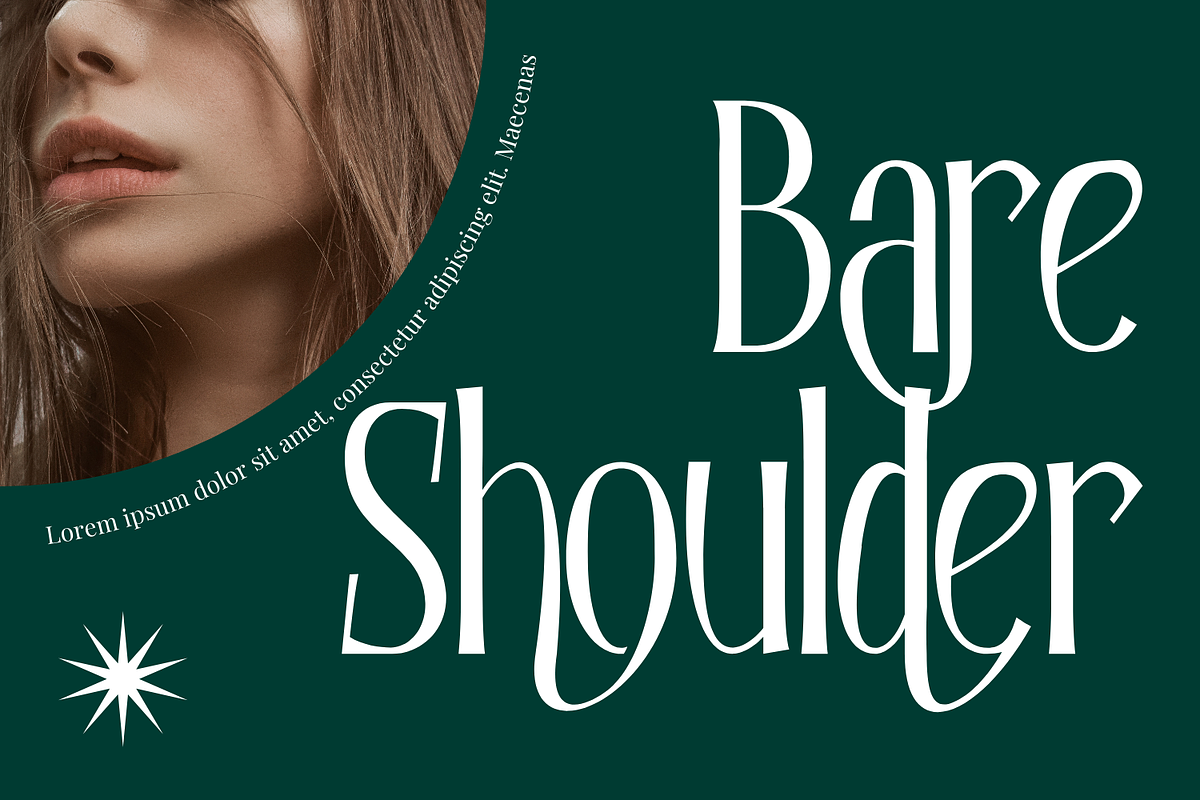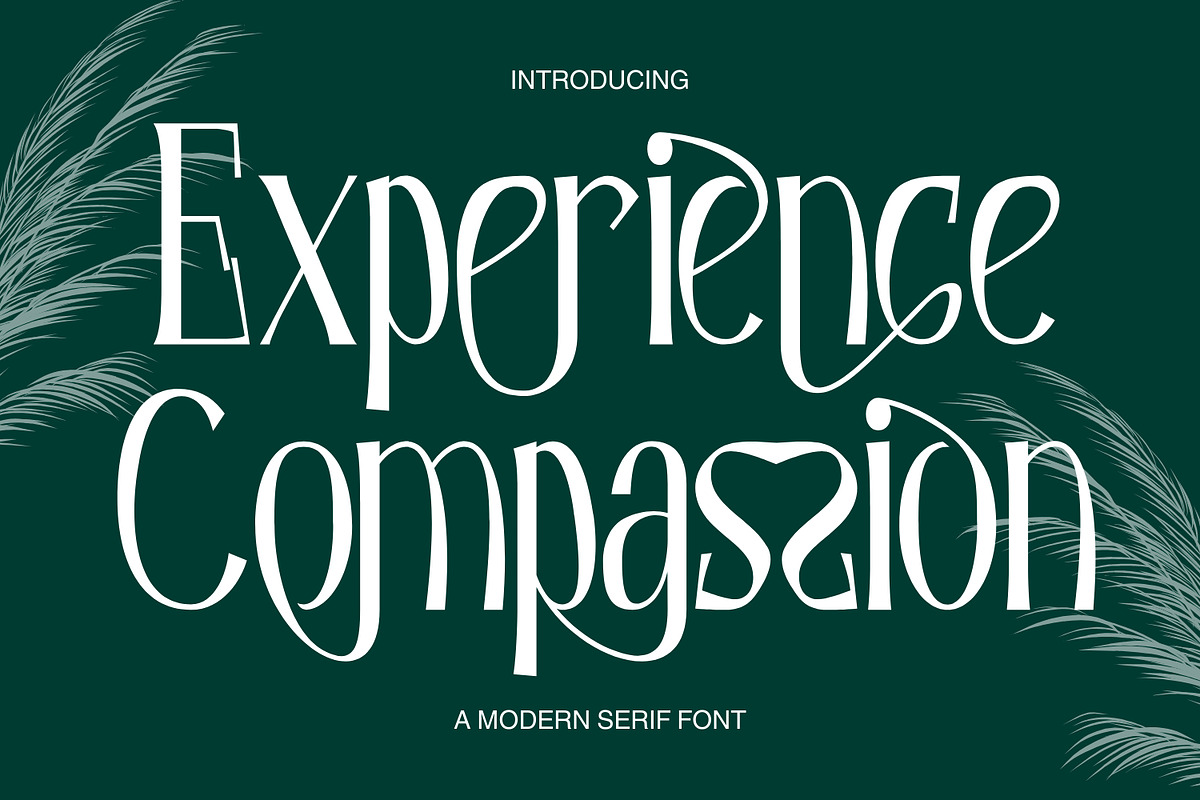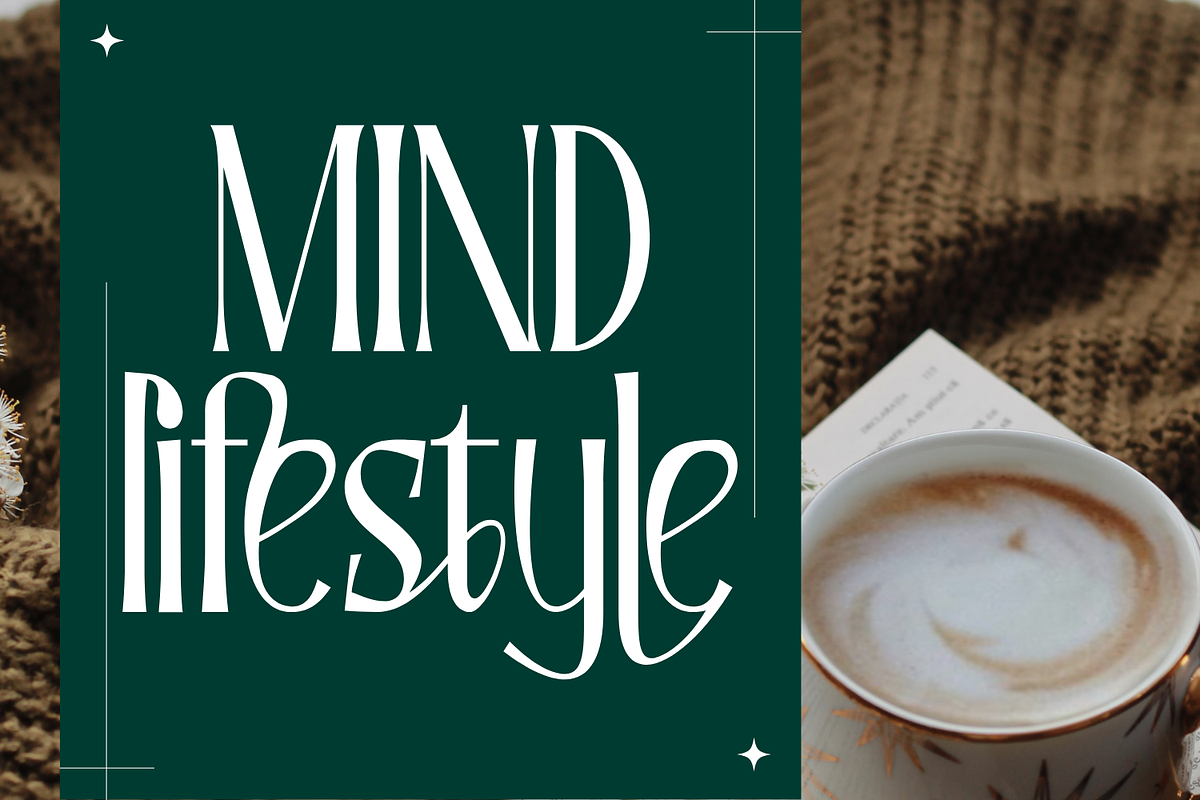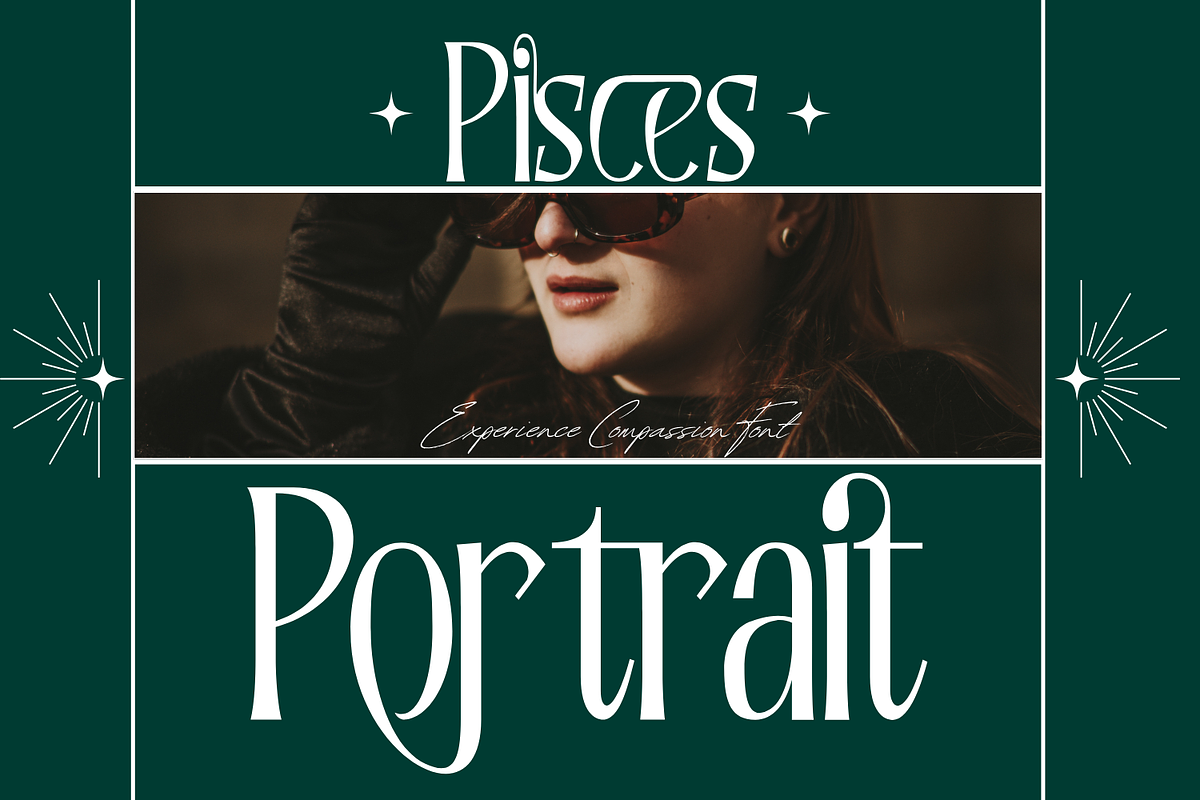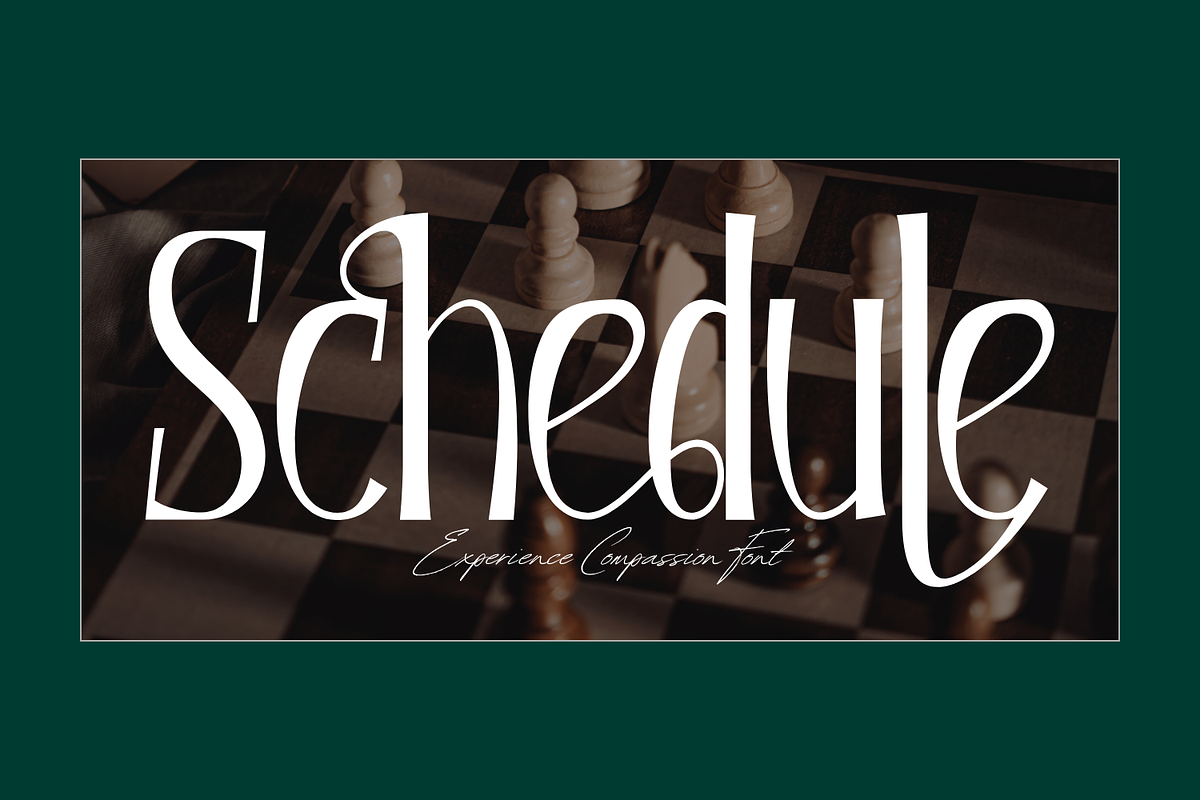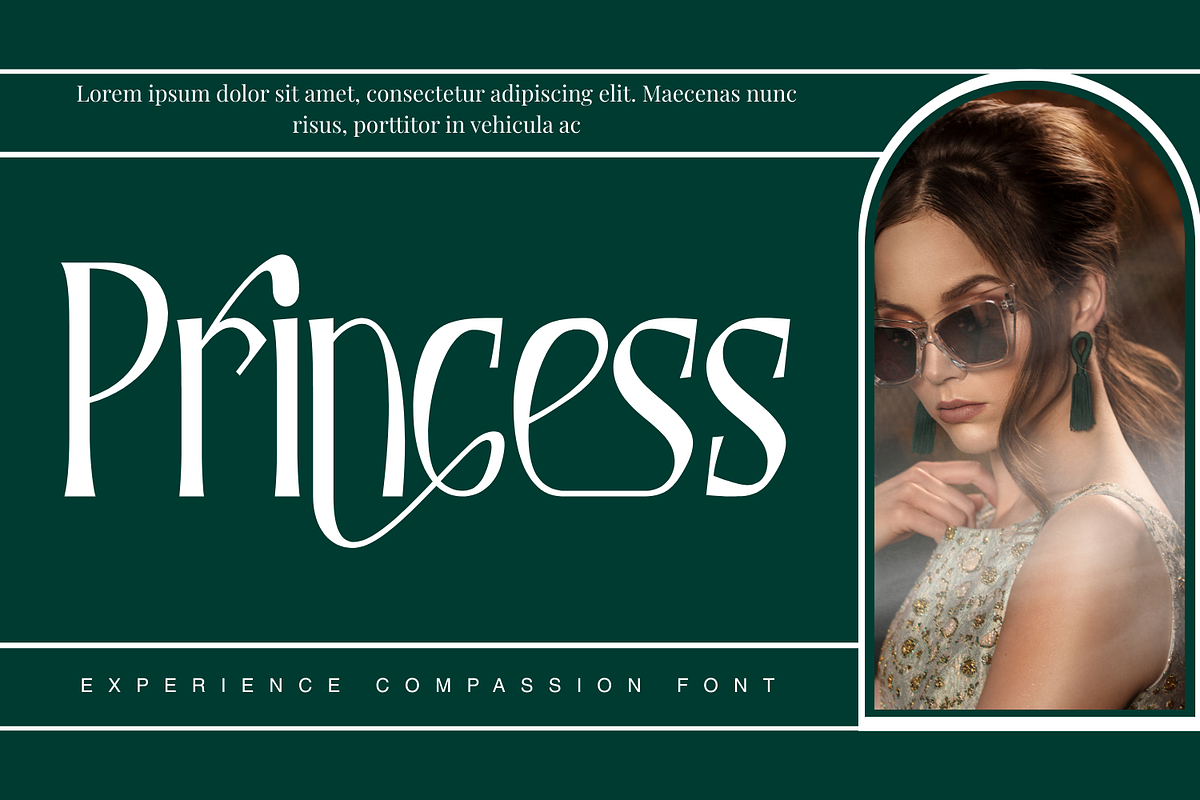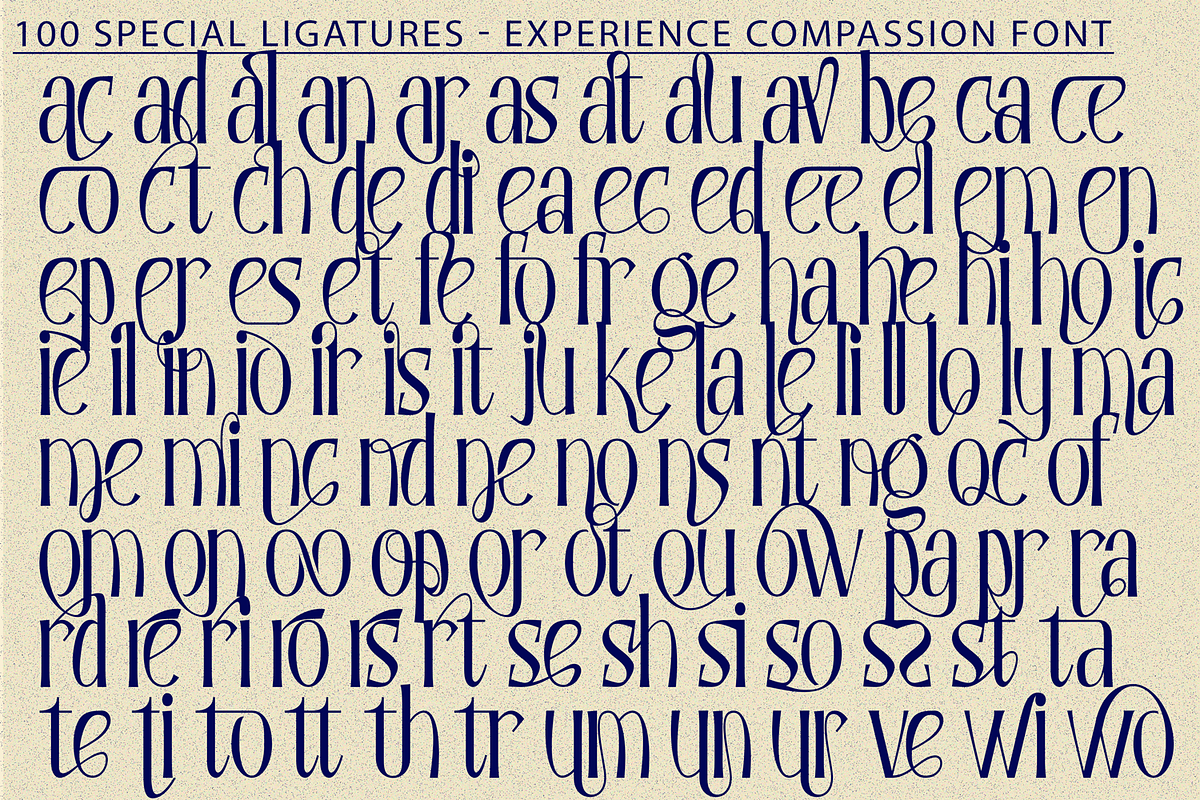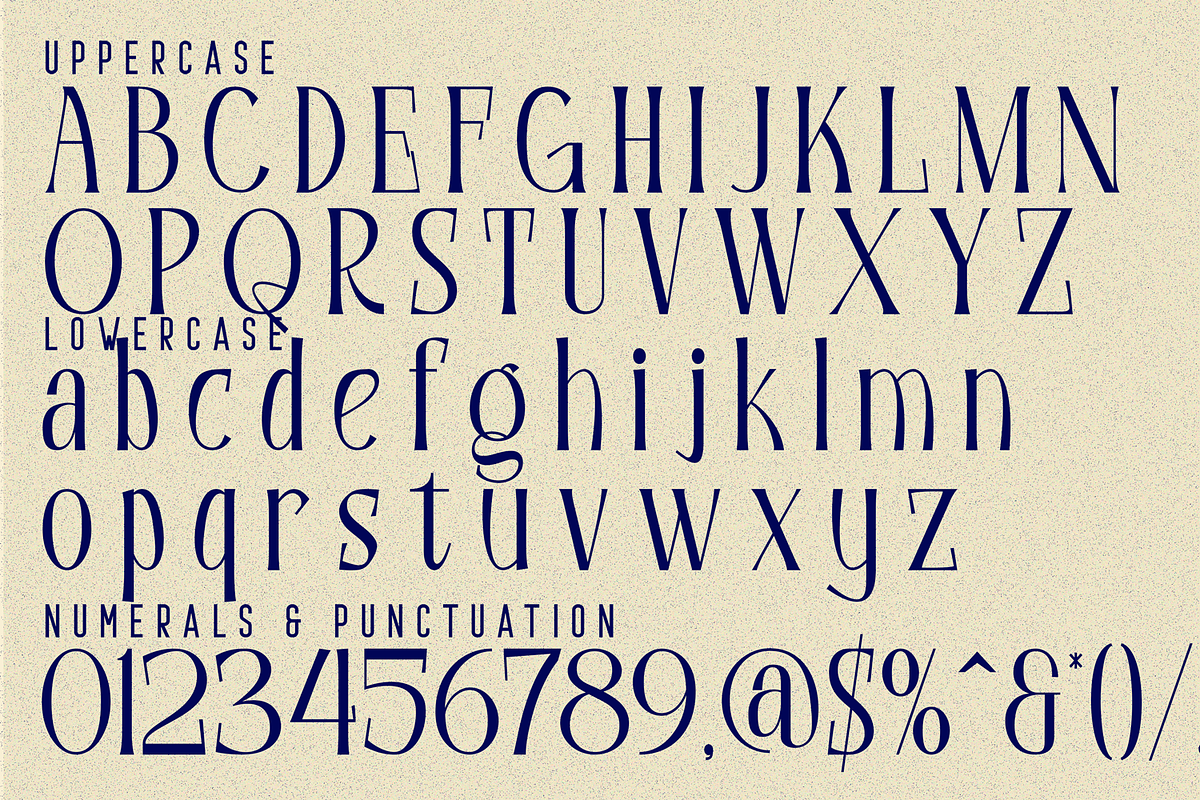
Experience Compassion - Modern Font
Experience Compassion - Modern Font is a modern romantic serif display typeface inspired by contemporary editorial design and graceful calligraphic forms. Featuring elegant curves, refined proportions, and delicately crafted ligatures, this font brings a soft yet sophisticated character to any composition. Including both Uppercase and Lowercase letters, approximately 100 custom special ligatures, complete Numerals & Punctuation, and extensive Accented characters, Experience Compassion gives designers the flexibility to create expressive and visually charming typography. Its flowing swashes, subtle decorative alternates, and heart-inspired details make it perfect for wedding invitations, beauty branding, boutique logos, magazine covers, and lifestyle projects.
🔤Features:
- Uppercase & Lowercase Letters
- Around 100 Special Ligatures & Alternates
- Accented Characters for multilingual support
🔤About 100 ligatures combined with Stylistic Alternates Font:
ac ad al an ar as at au av be ca ce ch co ct de di ea ec ed ee el em en ep er es et fe fo fr ge ha he hi ho ie ic il in io ir is it ju ke la le li ll lo ly ma me mi nc nd ne ng no nt ns oc of om on oo op or ot ou ow pa pr ra rd re ri ro rs rt se sh si so ss st ta te th ti to tr tt um un ur ve wi wo